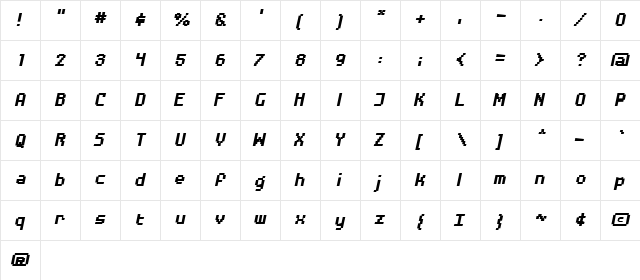
DisposableDroid BB Bold Italic Font Preview
Design Context for DisposableDroid BB Typeface
DisposableDroid BB is a composed and adaptable typeface that performs quietly and consistently across a wide range of design contexts. The dynamic lean of this cut emphasises speed and emphasis in any layout. The heavy weight commands attention and anchors typographic hierarchies.
Pro Tip: Try DisposableDroid BB for annotation and caption copy alongside an upright companion — the contrast in angle creates a dynamic but ordered typographic system.